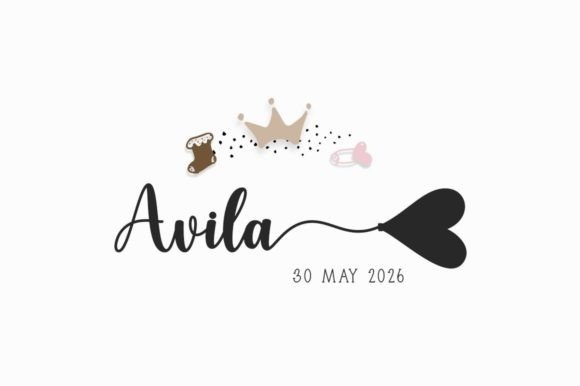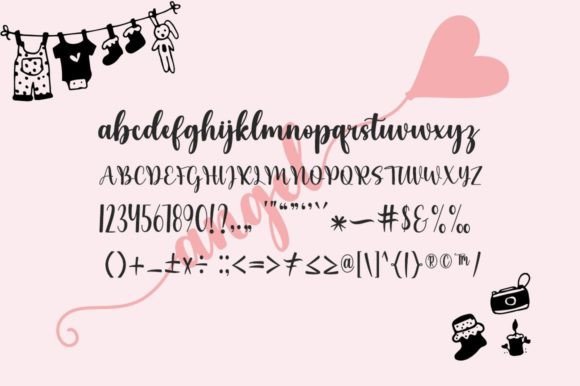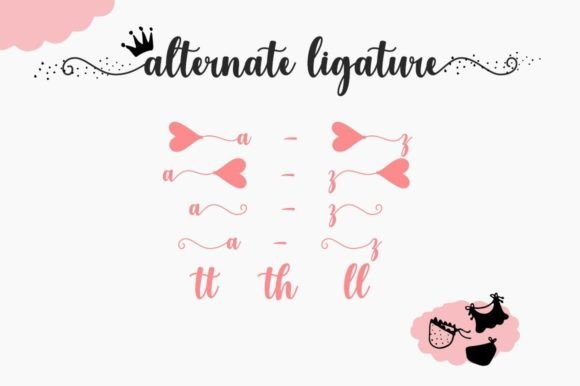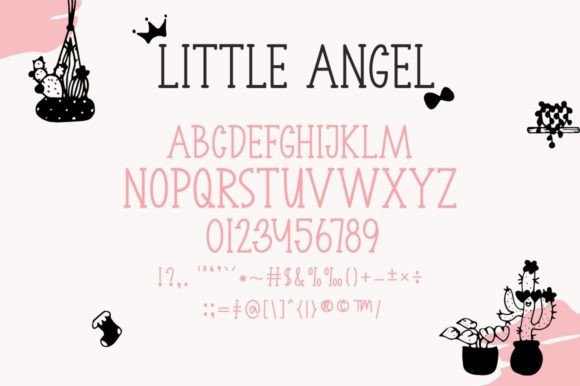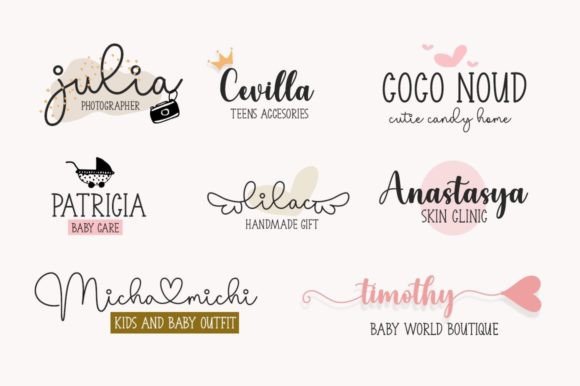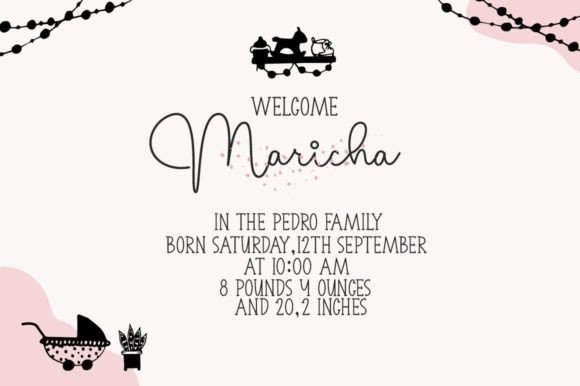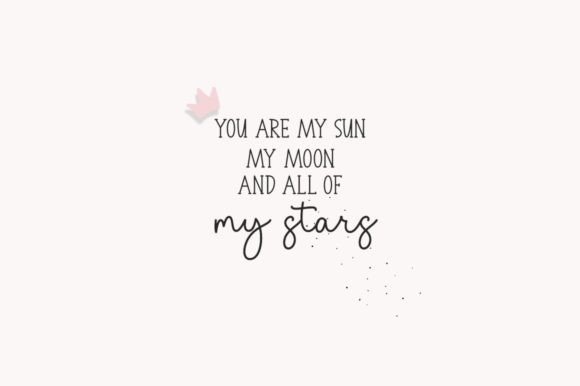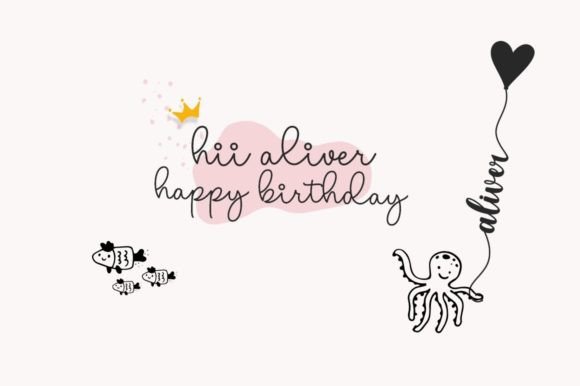
Little Angel Font
About Little Angel Font
“Little Angel” represents a dynamic trio of fonts, each possessing its unique charm—handwritten, script, and serif. Meticulously designed to complement one another, these fonts offer a seamless blend, creating a delightful synergy for your creative endeavors. Whether employed together or separately, the collection serves as an ideal choice for infusing your crafts with a chic and cheery touch.
The handwritten font exudes a sense of authenticity and warmth, adding a personal and human touch to your designs. Its free-flowing strokes convey a sense of spontaneity, making it a perfect choice for projects that require a touch of informality and friendliness. Meanwhile, the script font introduces an element of elegance and sophistication, with its cursive strokes and graceful curves. This font is well-suited for projects that demand a more formal or refined aesthetic, such as invitations or branding materials.
Complementing these is the serif font, a timeless and classic choice that provides a sense of stability and structure. Whether used for headings or body text, the serif font adds a touch of professionalism and readability to your designs. Together, these three fonts create a versatile toolkit that adapts to a myriad of creative contexts.
One of the standout features of the Little Angel font collection is its PUA encoding, a technological gem that enhances user accessibility. The PUA encoding ensures that all glyphs and swashes are easily accessible, allowing for a seamless and intuitive design process. This feature empowers designers to explore and experiment with the diverse range of characters, symbols, and flourishes that the fonts offer, unlocking a realm of creative possibilities.
As you embark on your creative journey with Little Angel, envision the myriad ways in which these fonts can elevate your projects. From bespoke invitations to eye-catching branding materials, the collection’s chic and cheery aesthetic brings a distinctive flair to your crafts. Unleash your creativity with confidence, knowing that the Little Angel font collection is designed to inspire and enhance your artistic expression.